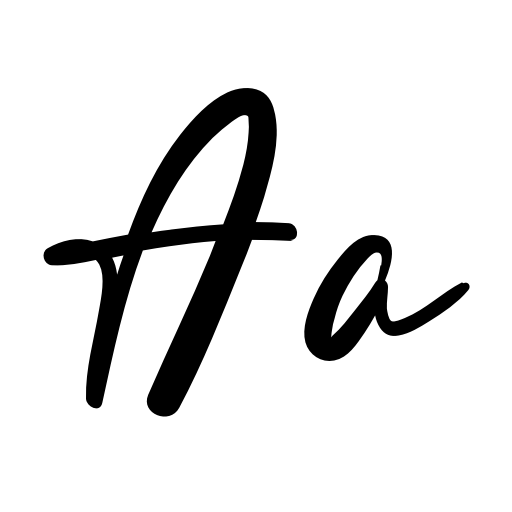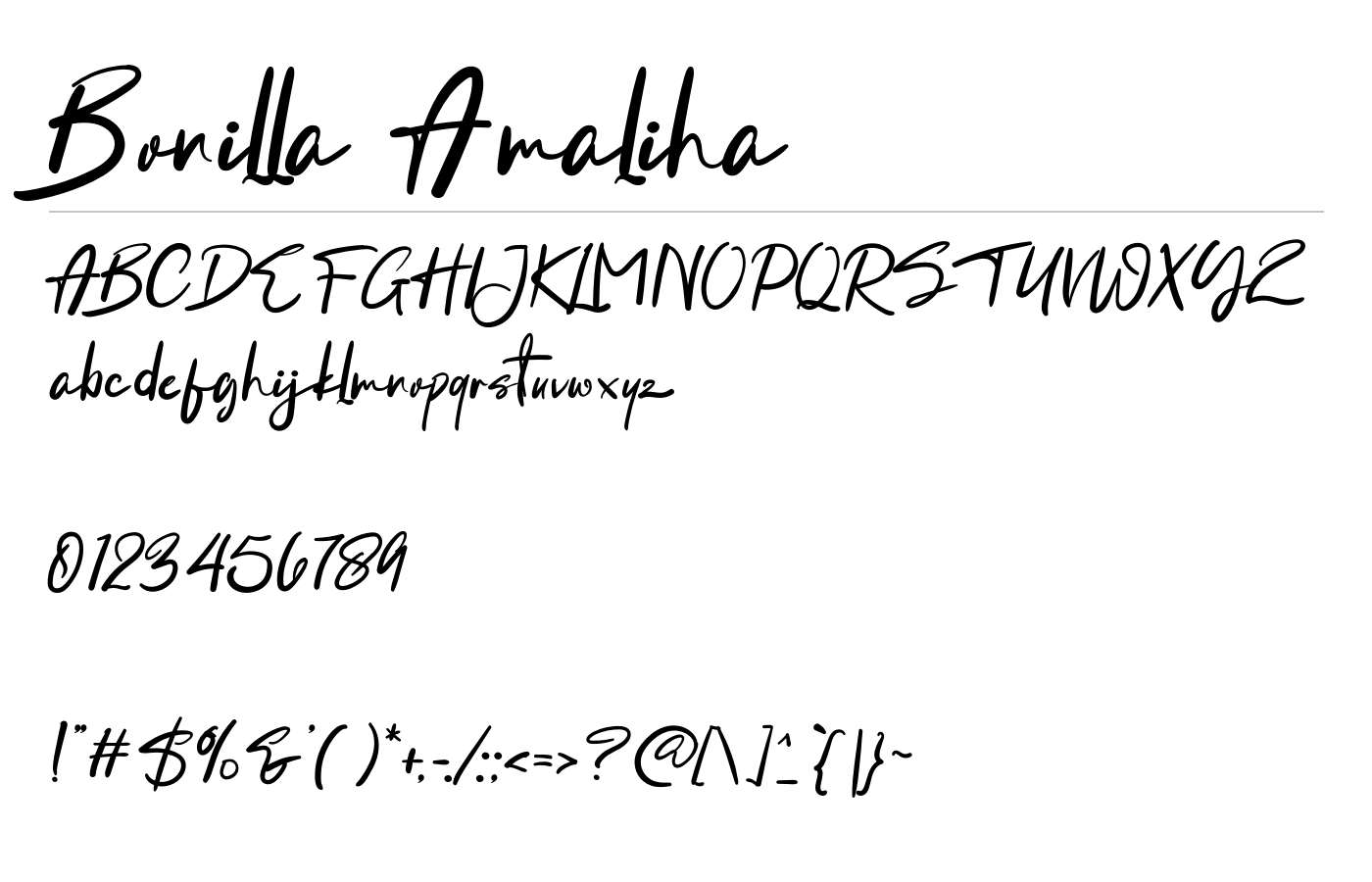
Bonilla Amaliha is a stylish handwritten script font that features a casual yet elegant flow with smooth, slightly varied strokes and a natural, organic feel. Its slender letterforms and moderate contrast make it perfect for creative projects, branding, and invitations where a personal and sophisticated touch is desired. This font works beautifully for logos, social media graphics, and packaging that aim to convey friendliness and artisanal charm.
Bonilla Amaliha Font
About Bonilla Amaliha Font